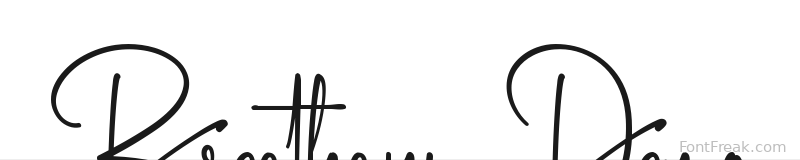
Breathany Demo
Breathany Demo is a captivating display font designed by Noah Type, making it an excellent choice for those seeking a unique typographic option. This font falls into the decorative category, characterized by its playful and artistic flair. The visual style of Breathany Demo showcases a mix of bold and thin strokes, creating a striking contrast that draws attention. The spacing is thoughtfully arranged, providing legibility while maintaining an artistic touch. Its whimsical curves and distinctive decorative elements add a sense of charm and personality, making it a standout choice for creative projects.
Ideal use cases for the Breathany Demo font include wedding invitations, where its elegant style can beautifully convey romance and celebration. It also shines in movie posters, giving a contemporary and artistic feel that captures the essence of the film. Restaurant menus can benefit from its unique character, enhancing the dining experience with an inviting atmosphere. Furthermore, this font is perfect for branding materials, allowing small business owners to create memorable identities that resonate with their target audience.
The target audience for the Breathany Demo font includes graphic designers, content creators, and small business owners who wish to add a distinctive touch to their visual communications. With its freeware license, it’s an accessible option for those looking to elevate their design projects without incurring costs.
What sets the Breathany Demo font apart is its ability to blend creativity with functionality. Its unique design elements ensure that any project using this font will stand out, making it an excellent choice for anyone looking to make an impression. For those interested, the Breathany Demo font free download offers an opportunity to explore its potential in various creative applications.